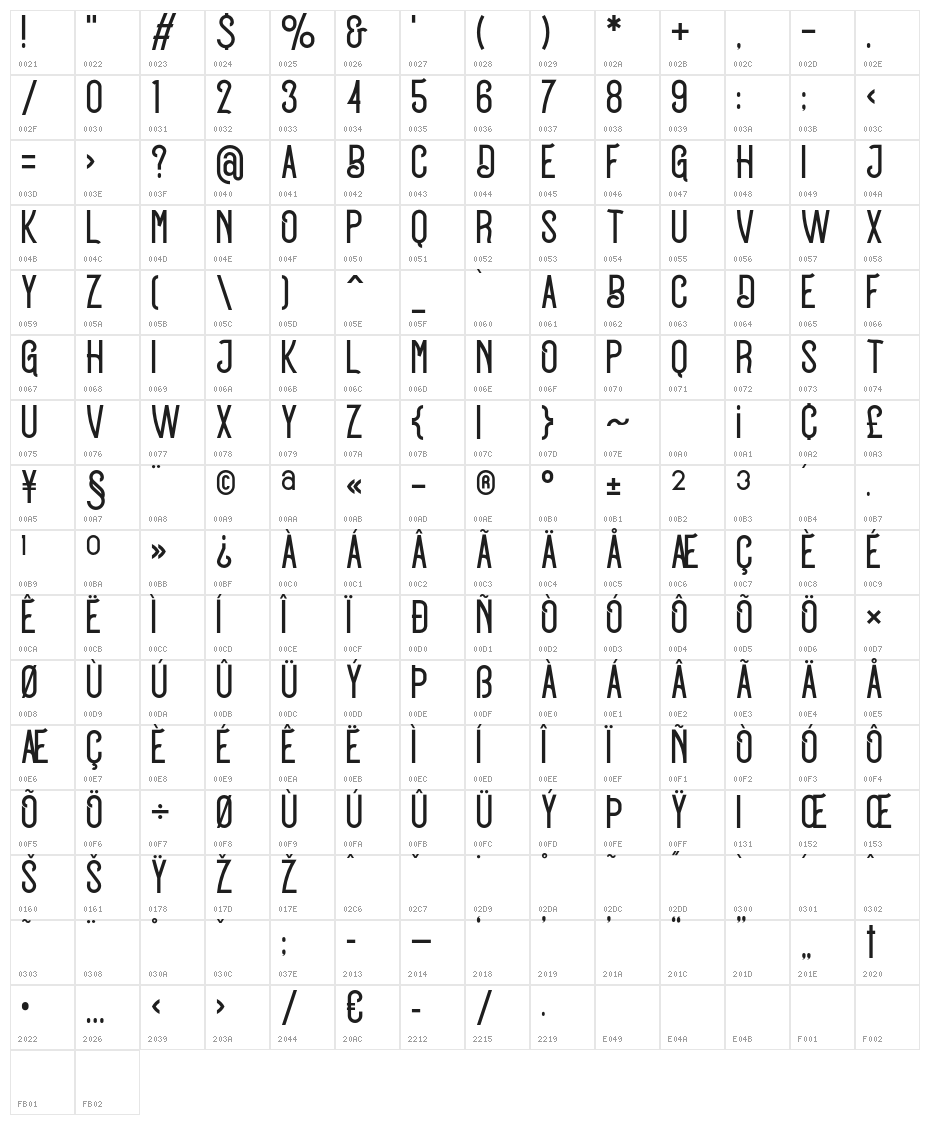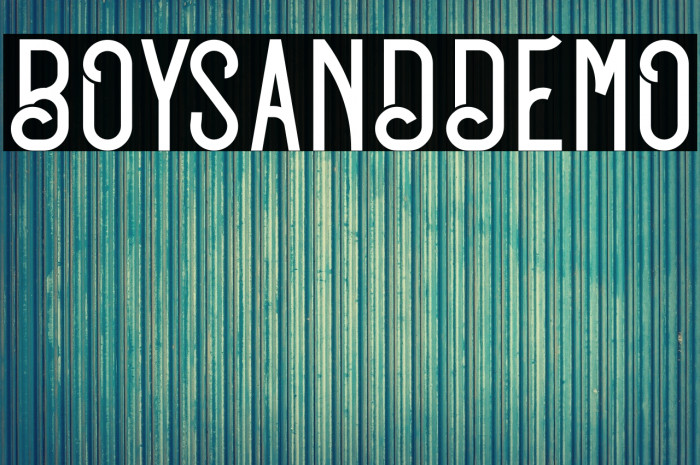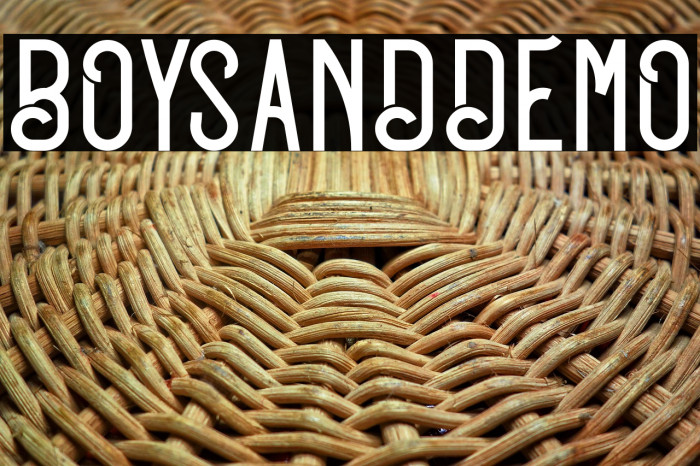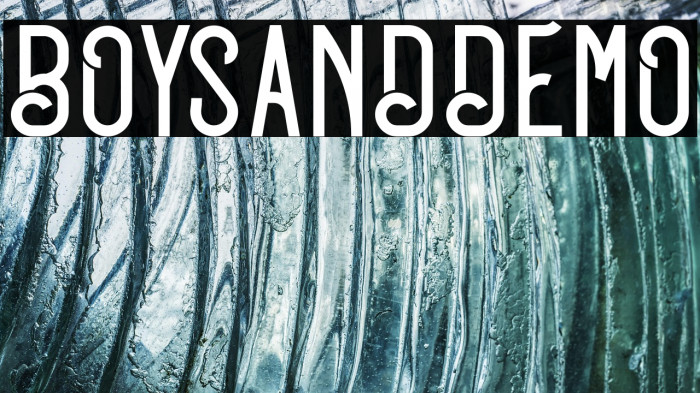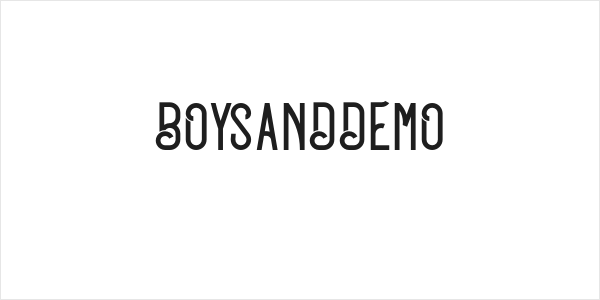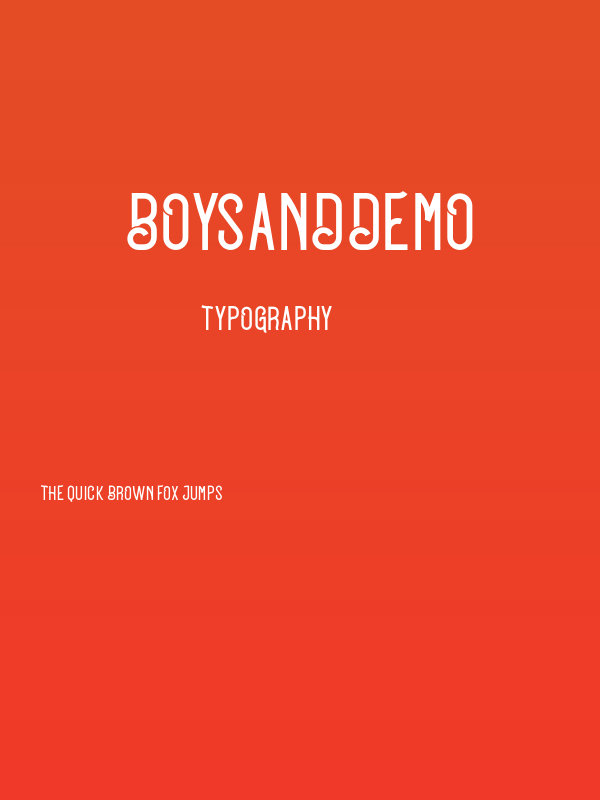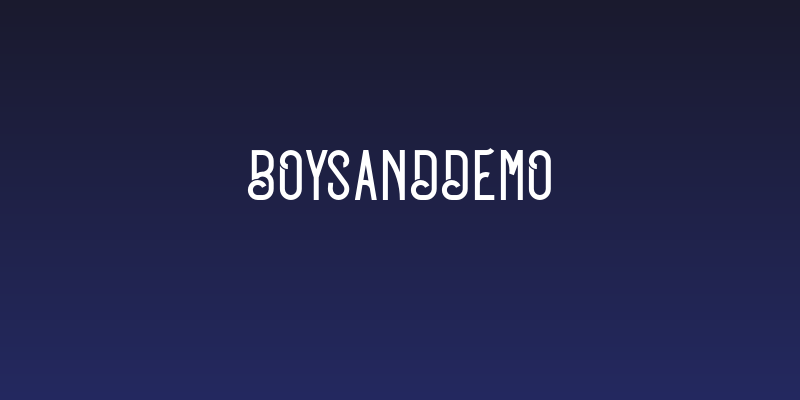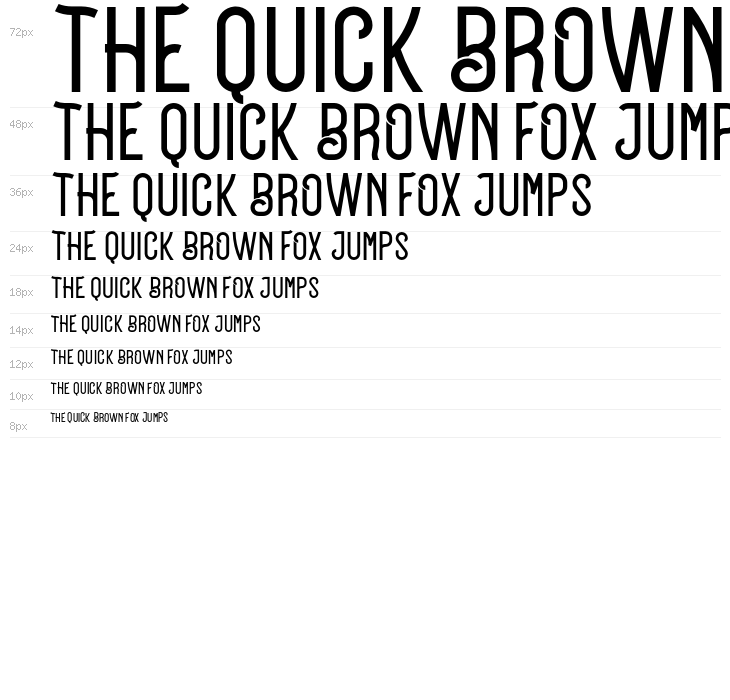
BOYSANDDEMO Font
BOYSANDDEMO Description
This font features a bold and playful design with a unique blend of curves and straight lines, giving it a distinctive and eye-catching appearance. The uppercase letters are tall and narrow, with some characters like 'B' and 'S' having a quirky, almost whimsical twist. The lowercase letters maintain a consistent style, complementing the uppercase with their own subtle flair. Numbers are bold and clear, making them easily readable. Special characters are designed to match the overall playful aesthetic, ensuring a cohesive look across all text elements.
| Overall Style | Playful, Modern |
| Proposed Projects | Ideal for children's books, playful branding, posters, and creative projects that require a fun and engaging typeface. |